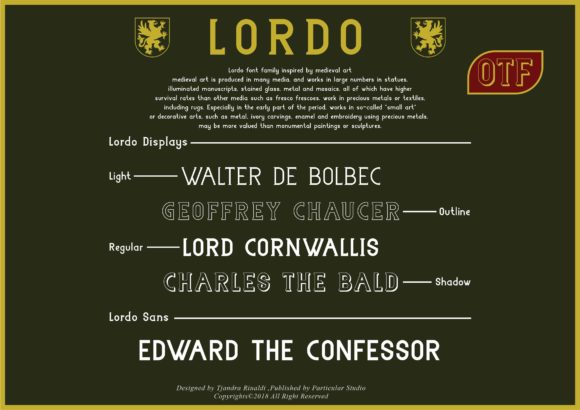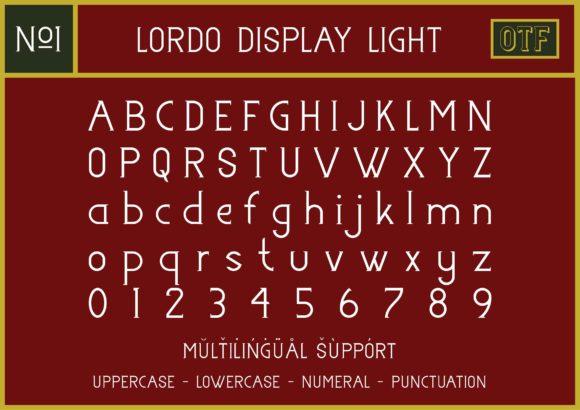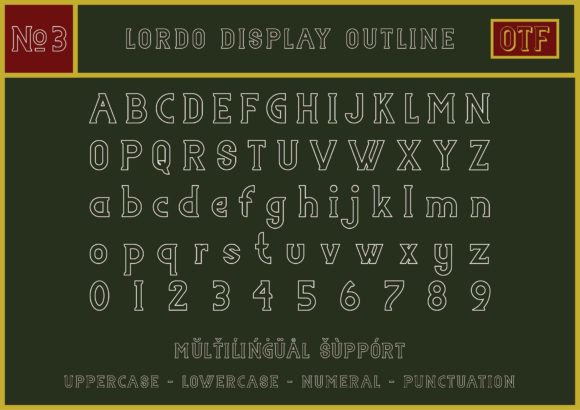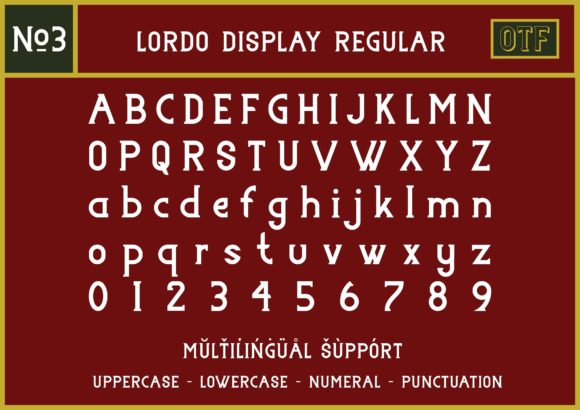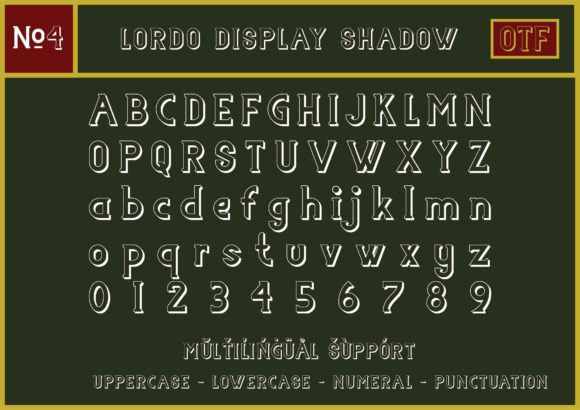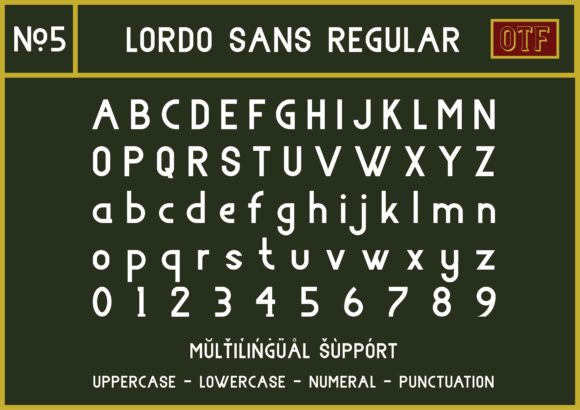
Introduction to Lordo Family Font
The Lordo is a striking display family.
It includes 5 unique styles which gives you the opportunity to create multiple unique designs with just this one family It was inspired my medieval art.